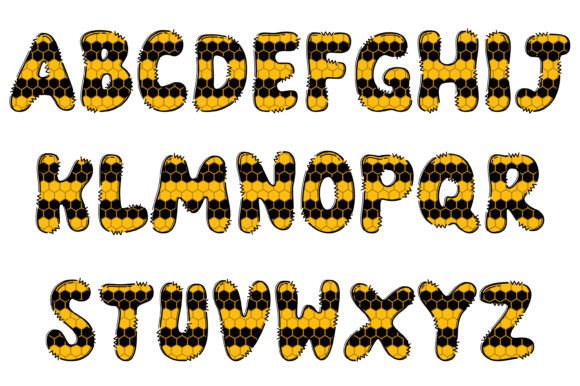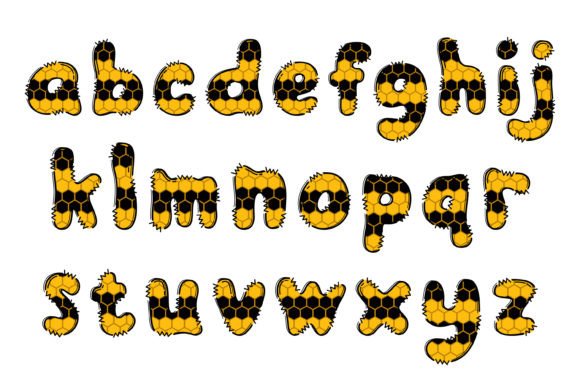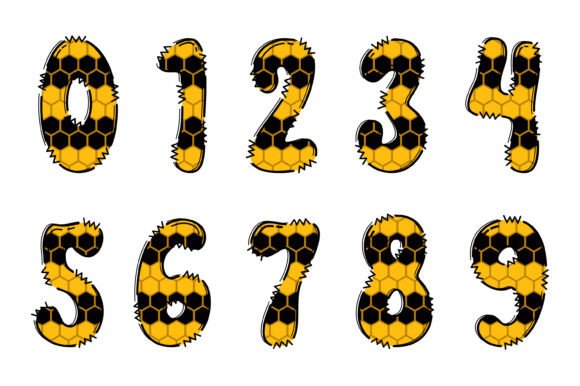
Bring a Buzz to Your Designs with Bee Font
Who hasn’t been inspired by a beautiful font at some point in their creative journey? For many of us, it all starts with a spark of imagination – a glance at a colorful poster, a playful invitation, or a whimsical children’s book. That’s exactly what Bee Font aims to bring to your designs: a playful, artistic feel that’s perfect for projects that need a little extra charm.
With its black version compatible with Cricut Design Space and other cutting machines, Bee Font is a valuable tool for designers looking to add a touch of whimsy to their creations. Whether you’re working on a children’s book, a poster, or a greeting card, this font is sure to bring a smile to your face and a buzz to your designs.
Bee Font Key Features
- Font Family: Bee Font is a unique, hand-drawn font with a bee-inspired design, suitable for various graphic design applications.
- Character Set: The font includes a wide range of characters, including uppercase and lowercase letters, numbers, and punctuation marks, making it suitable for various typesetting needs.
- Unique Characteristics: The bee-inspired design elements, such as the rounded shapes and playful flourishes, add a touch of whimsy and personality to any design project.
Bee Font Review
I recently had the chance to dive into the “Bee Font” and here’s my honest take.
- Unique and playful design: Bee Font offers a one-of-a-kind aesthetic that’s perfect for brands looking to stand out.
- Good legibility: Despite its whimsical nature, the font is relatively easy to read, making it suitable for body text.
- Versatility: Bee Font comes in a range of weights and styles, giving designers the flexibility to choose the perfect fit for their project.
- Limited use cases: While Bee Font is great for branding and editorial work, it may not be the best choice for body text in formal or professional contexts.
- May not be suitable for small text: The font’s unique design can make it challenging to read in smaller sizes, so be cautious when using it in headings or captions.
- Not ideal for long blocks of text: Bee Font’s playful nature can make it difficult to sustain reader engagement when used in large quantities.
Overall, I think Bee Font is a great choice for designers looking to add some personality to their work. While it may not be suitable for every project, it’s a valuable addition to any design toolkit.
Tips for Getting the Most Out of Bee Font
For optimal results, use Bee Font for titles, headings, and other text elements that require a bold and playful touch.
Bee Font is perfect for:
- Children’s book covers and illustrations.
- Party invitations and decorations.